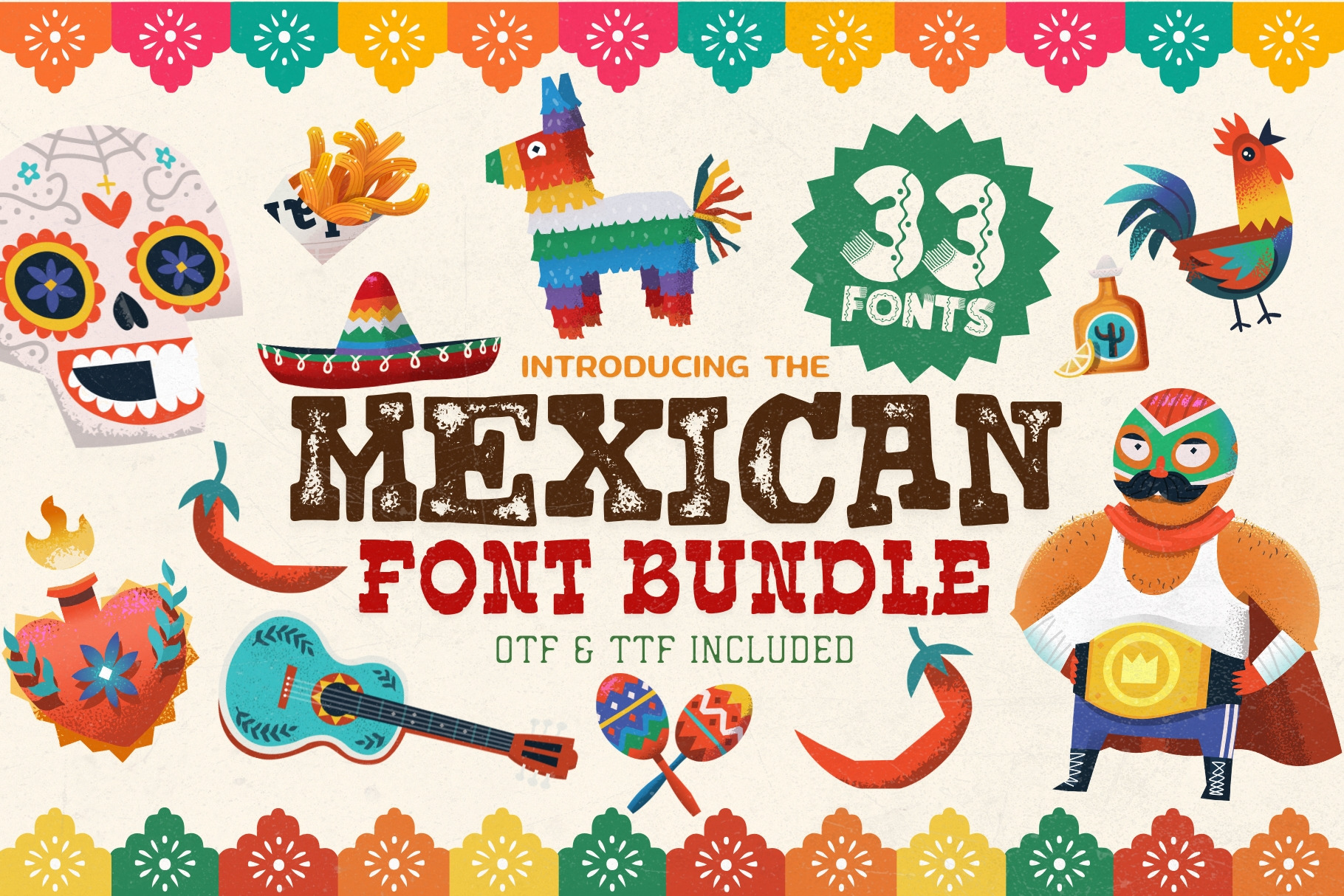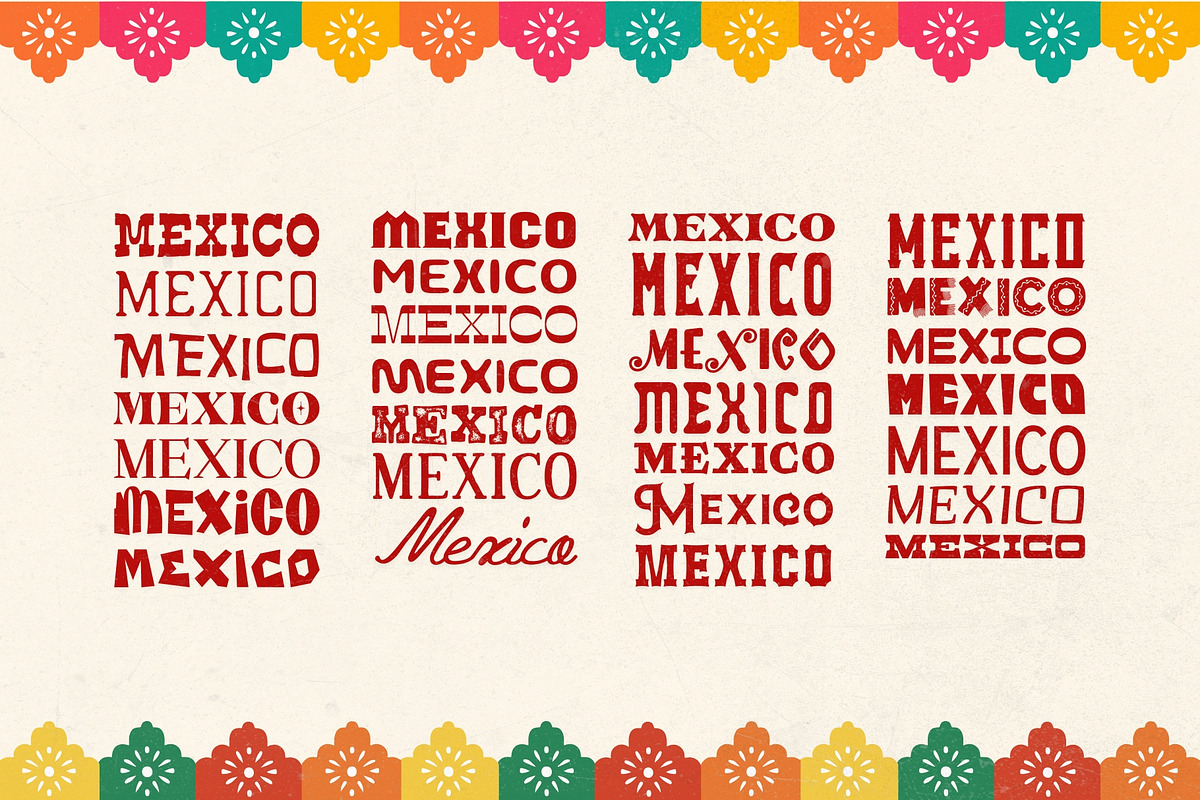
Mexican Font Bundle - 33 Fonts!
Bring bold culture, vibrant celebration, and handcrafted character into your designs with The Mexican Font Bundle — a powerful collection of 33 typefaces inspired by festive streets, vintage cantina signage, artisan markets, and timeless colonial lettering traditions.
From decorative fiesta display fonts to rustic western serifs and handcrafted scripts, this bundle captures the warmth, rhythm, and personality of Mexico’s rich visual heritage. Think colorful papel picado banners, Talavera tile patterns, sun-soaked stucco walls, and hand-painted shop signs found in cities like Oaxaca and Guadalajara. Each font is designed to feel authentic, expressive, and full of life — perfect for branding that needs energy and soul.
Whether you're designing:
- Fiesta invitations
- Taco truck branding
- Tequila or mezcal labels
- Cinco de Mayo event posters
- Quinceañera invitations
- Restaurant menus
- Western-style logos
- Handmade product packaging
If you want typography that feels festive, handcrafted, and unforgettable — this bundle delivers bold impact and cultural charm in every letter.